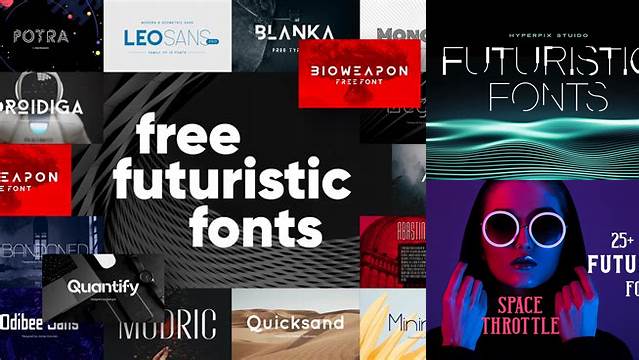
Futuristic Fonts: Free Downloads For Modern Designs
Hey guys! Ever felt like your designs needed a serious upgrade to the future? Well, you're in the right place! We're diving deep into the world of futuristic fonts, and trust me, there's a whole galaxy of awesome typefaces just waiting to be discovered. In this article, we’ll explore everything from where to find them to how to use them, making sure your projects look like they’ve landed straight from a sci-fi movie. So buckle up, and let’s jump into the future of typography!
1. Understanding Futuristic Fonts: What Makes Them Tick?
So, what exactly are futuristic fonts? Futuristic fonts aren't just about looking cool; they're about conveying a sense of innovation, technology, and forward-thinking design. Think clean lines, sharp angles, and sometimes a touch of the unconventional. When we talk about futuristic fonts, we're often referring to typefaces that evoke feelings of progress and modernity, making them perfect for tech startups, sci-fi projects, or anything that needs a cutting-edge vibe. The history of these fonts is rooted in the early 20th-century art movements like Bauhaus and Art Deco, which emphasized simplicity and geometric forms. Over time, as technology advanced, so did our interpretation of what “futuristic” means. Today’s futuristic fonts are incredibly diverse, ranging from sleek and minimalist to bold and complex, but they all share that underlying theme of looking towards the future. The key characteristics of these fonts often include geometric shapes, sans-serif designs, and unique letterforms that challenge traditional typography. Using futuristic fonts effectively can significantly enhance the visual appeal of your projects, making them stand out and grab attention. For example, a website for a tech company might use a futuristic font to convey innovation and modernity, while a sci-fi book cover might use one to create a sense of high-tech adventure. In short, futuristic fonts are a powerful tool for designers looking to make a bold statement about the future.
2. Where to Find Free Futuristic Fonts Online
Alright, let’s get down to the nitty-gritty: where can you actually find these amazing free futuristic fonts? The internet is a treasure trove, guys, but it can also be a bit overwhelming. Don't worry, I've got your back! There are tons of websites offering free fonts, but we need to sift through them to find the real gems. Some of the best resources include Google Fonts, DaFont, FontSpace, and Behance. Google Fonts is a fantastic place to start because it offers a wide variety of high-quality fonts that are completely free for commercial use. DaFont and FontSpace are also goldmines, with massive libraries contributed by designers from all over the world. You’ll find everything from sleek, minimalist designs to wild, experimental typefaces on these sites. Behance, while not exclusively a font site, often features designers who offer free font downloads as part of their portfolios. When you’re browsing these sites, keep an eye out for fonts that fit your project’s aesthetic. Search terms like “futuristic,” “tech,” “cyberpunk,” and “sci-fi” can help you narrow down the options. Remember to always check the licensing information before you download and use a font, especially for commercial projects. Most free futuristic fonts come with a specific license that outlines how you can use them. This might include restrictions on commercial use or requirements for attribution. By knowing where to look and what to look for, you can build a collection of futuristic fonts that will give your designs a unique edge.
3. Top Websites for Downloading Futuristic Fonts
Okay, let's break down the best spots on the web to snag those futuristic fonts. We've already mentioned a few, but let's dive a bit deeper into why they're so awesome. Think of this as your ultimate guide to font-finding nirvana. First up, we have Google Fonts. It’s a powerhouse, guys, with a massive selection of fonts that are not only free but also incredibly versatile. The best part? They’re all open-source, meaning you can use them for pretty much anything without worrying about licensing headaches. Plus, Google Fonts integrates seamlessly with web projects, making it super easy to use these fonts on your website. Next, DaFont is a classic for a reason. It’s been around for ages and boasts a huge collection of fonts, including a ton of futuristic options. The interface is a bit old-school, but the sheer volume of choices makes it worth a look. Just remember to double-check those licenses! FontSpace is another fantastic resource, with a clean and user-friendly interface. It’s easy to search and filter fonts, and they have a great selection of futuristic styles. Plus, they often feature exclusive fonts from independent designers, so you’re sure to find something unique. Lastly, don't forget about Behance and Dribbble. These are more design-focused platforms, but many designers share free fonts as part of their portfolio. You might have to do a bit more digging, but you’ll often find some real hidden gems. By exploring these top websites, you’ll have a killer collection of free futuristic fonts in no time.
4. Popular Styles in Futuristic Typography
Let's talk styles, baby! The world of futuristic typography is vast and varied, and understanding the different styles can help you choose the perfect font for your project. One popular style is the minimalist approach. Think clean lines, simple geometric shapes, and a sleek, uncluttered look. These fonts often have a high-tech feel without being overly flashy, making them ideal for corporate websites or modern branding. Another style is the cyberpunk aesthetic, which is all about edgy, gritty, and slightly dystopian designs. Cyberpunk fonts often feature sharp angles, distorted letterforms, and a sense of urban decay. They’re perfect for sci-fi book covers, video game designs, or anything that needs a rebellious vibe. Then there’s the geometric style, which emphasizes perfect shapes and precise lines. Geometric futuristic fonts are often inspired by early 20th-century art movements like Bauhaus and Art Deco. They have a timeless quality that makes them suitable for a wide range of projects. You might also come across experimental styles, which push the boundaries of traditional typography. These fonts can be highly stylized and unconventional, featuring unique letterforms and unexpected details. They’re great for making a bold statement and standing out from the crowd. Finally, there are the tech-inspired fonts, which often mimic the look of digital displays and interfaces. These fonts might feature pixelated letters, LED-style elements, or other techy details. By understanding these different styles, you can choose futuristic fonts that perfectly match the mood and message of your design.
5. Minimalist Futuristic Fonts for Clean Designs
If you're aiming for a sleek and modern look, minimalist futuristic fonts are your best friend, guys. These fonts are all about simplicity and elegance, making them perfect for projects that need a touch of high-tech sophistication without being overly flashy. Minimalist fonts typically feature clean lines, geometric shapes, and a lack of unnecessary ornamentation. They prioritize readability and clarity, ensuring that your message comes across loud and clear. When choosing a minimalist futuristic font, think about the overall tone you want to convey. A slightly rounded font might feel more approachable and friendly, while a font with sharp angles can project a sense of precision and innovation. Minimalist fonts are incredibly versatile and can be used in a wide range of applications. They’re ideal for website headers, logos, branding materials, and even body text. A great example of a minimalist futuristic font is one with a monospaced design, where each letter takes up the same amount of horizontal space. This creates a clean, uniform look that’s perfect for tech-related projects. Another popular option is a sans-serif font with a tall x-height, which refers to the height of the lowercase letters. This enhances readability and gives the font a modern, open feel. When using minimalist futuristic fonts, pay attention to kerning and spacing. The right amount of space between letters can make a big difference in the overall look and feel of your design. In short, minimalist futuristic fonts are a powerful tool for creating clean, modern designs that stand out from the crowd.
6. Cyberpunk and Sci-Fi Inspired Fonts
Alright, let's get into the gritty stuff! If you're working on a project with a cyberpunk or sci-fi vibe, you need fonts that scream